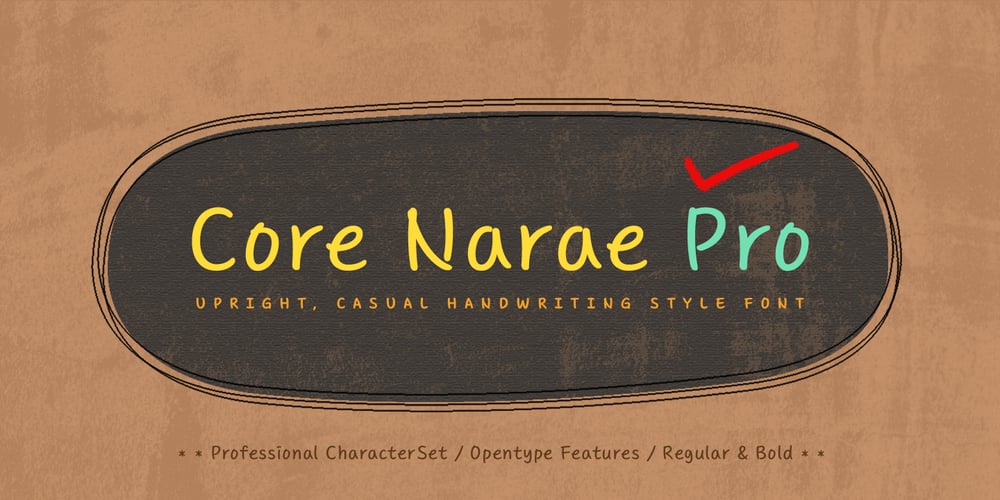
Core Narae Pro Font Family was designed by Hyun-Seung Lee, Dae-Hoon Hahm, Minjoo Ham and published by S-Core. Core Narae Pro contains 2 styles and family package options. Core Narae Pro is an improved version of Core Narae released in 2012. This type family has improved a lot. First of all, we have rearranged a rhythmic text line to make it work well both as a headline and a text font. And this new version has more OpenType features, including Proportional Figures, Tabular Figures, Numerators, Denominators, Superscript, Scientific Inferiors, Subscript, Fractions and Standard Ligatures. We have also added one more weight and improved kerning for using this type family effieciently. Finally, we exclude MS Windows 949 Korean consisting of 11,172 Korean letters and Symbols except Chinese to reduce the file size and price but added more glyphs that support latin,cyrillic,greek. Now, Core Narae Pro Family consists of 2 weights (Regular & Bold) and it supports WGL4, which provides a wide range of character sets(CE, Greek, Cyrillic and Eastern European characters). Its bending strokes and rhythmic feeling of this typeface make your works more friendly.